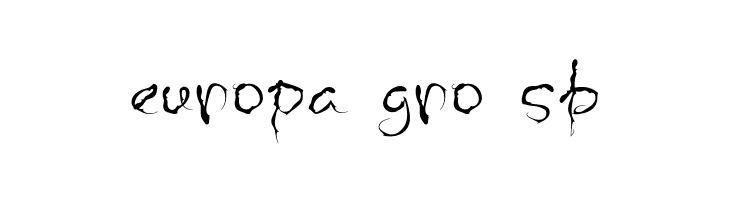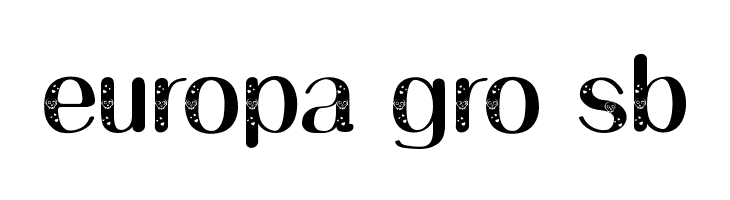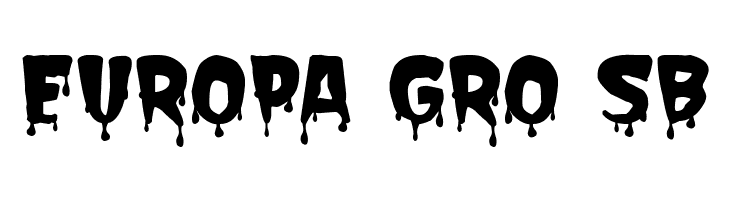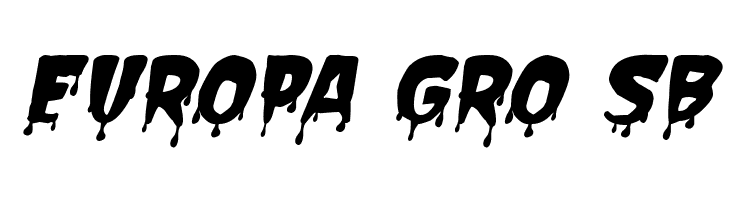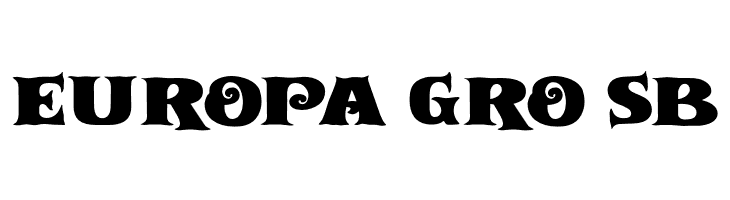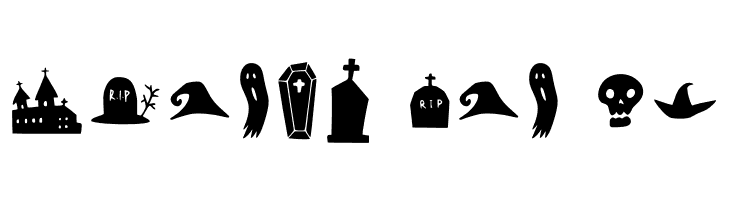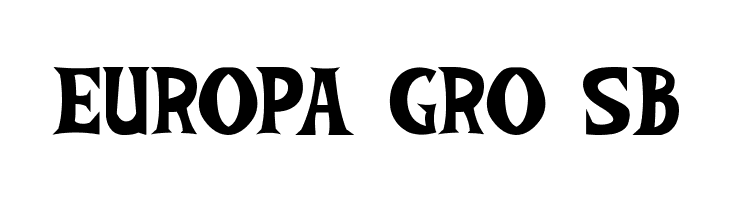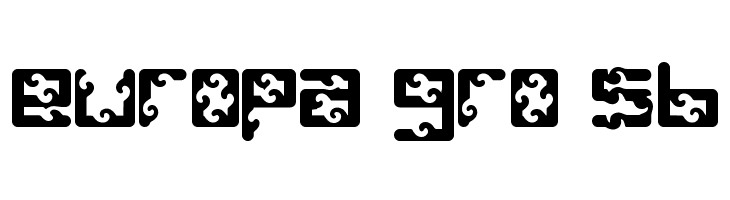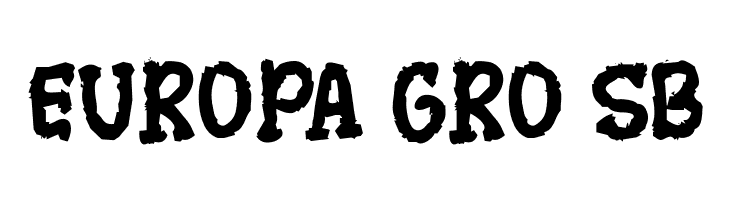
A spooky, decorative font with vine-like embellishments, perfect for Halloween themes.
A playful, spooky font with swirling patterns and eerie textures.
A dripping, eerie font ideal for horror themes.
A bold, dripping font perfect for horror themes.
A bold, decorative font with a spooky, whimsical style.
Halloween-themed decorative dingbat font with spooky icons.
A horror-themed, decorative font with thorny edges and devilish motifs.
A bold, spooky font with sharp edges and a playful, eerie style.
A spooky, dripping font perfect for Halloween-themed designs.
A bold, distressed font with a spooky, hand-drawn appearance.